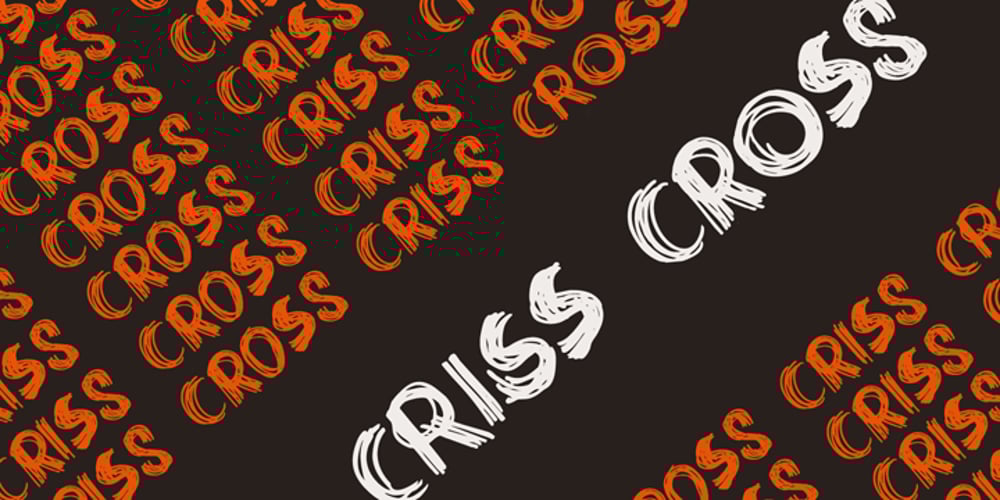
Criss Cross Font Family was designed by published by Hanoded. Criss Cross contains 4 styles and family package options. Criss Cross is a scratchy, scribbly, rough-n-tough kinda font. The idea comes from the many notes I wrote in my horrible handwriting. When I want to stress things, it sort of looks like Criss Cross. So… Now you can write notes and stress things too! And guess what? It comes with a bunch of alternates, so enjoy!